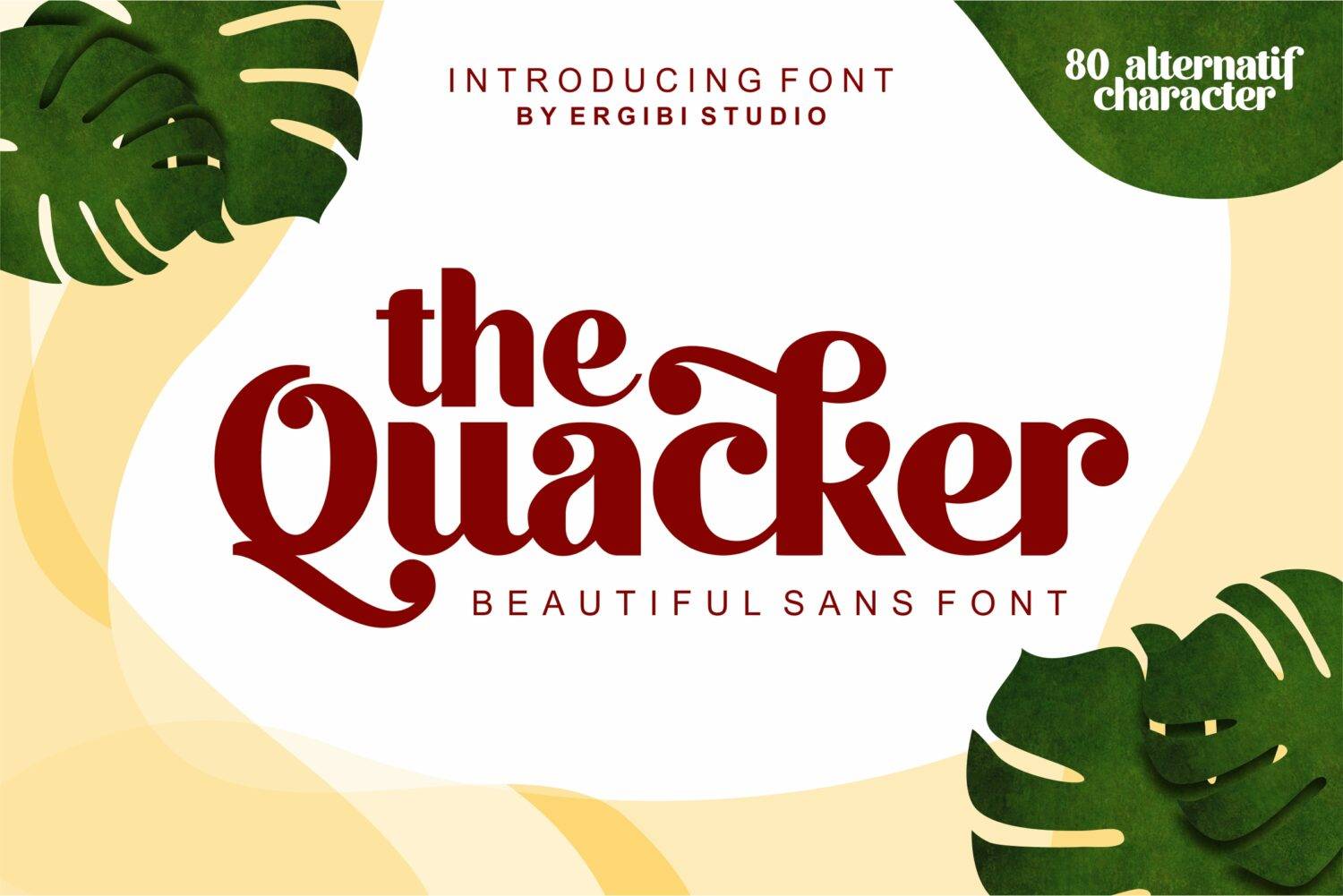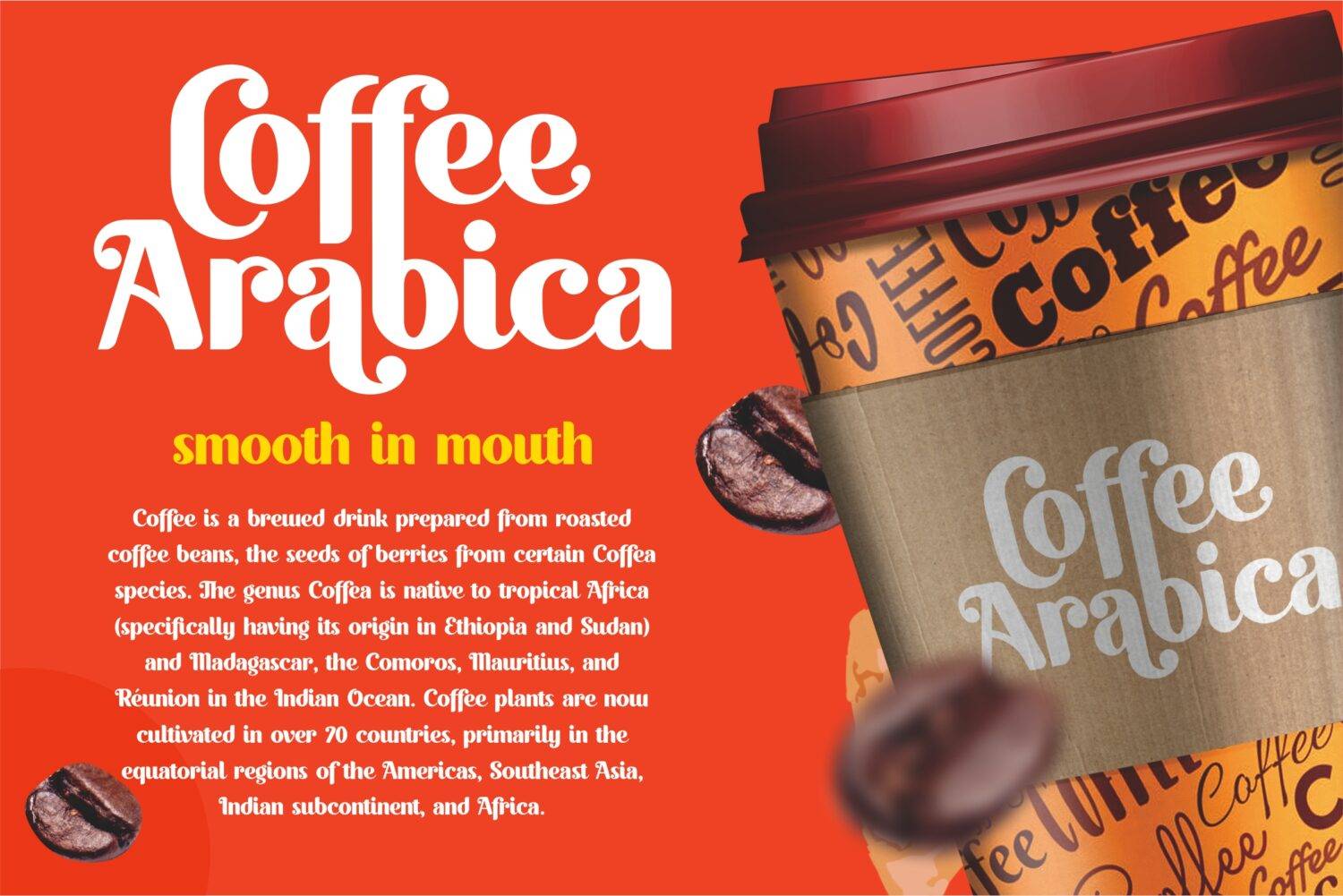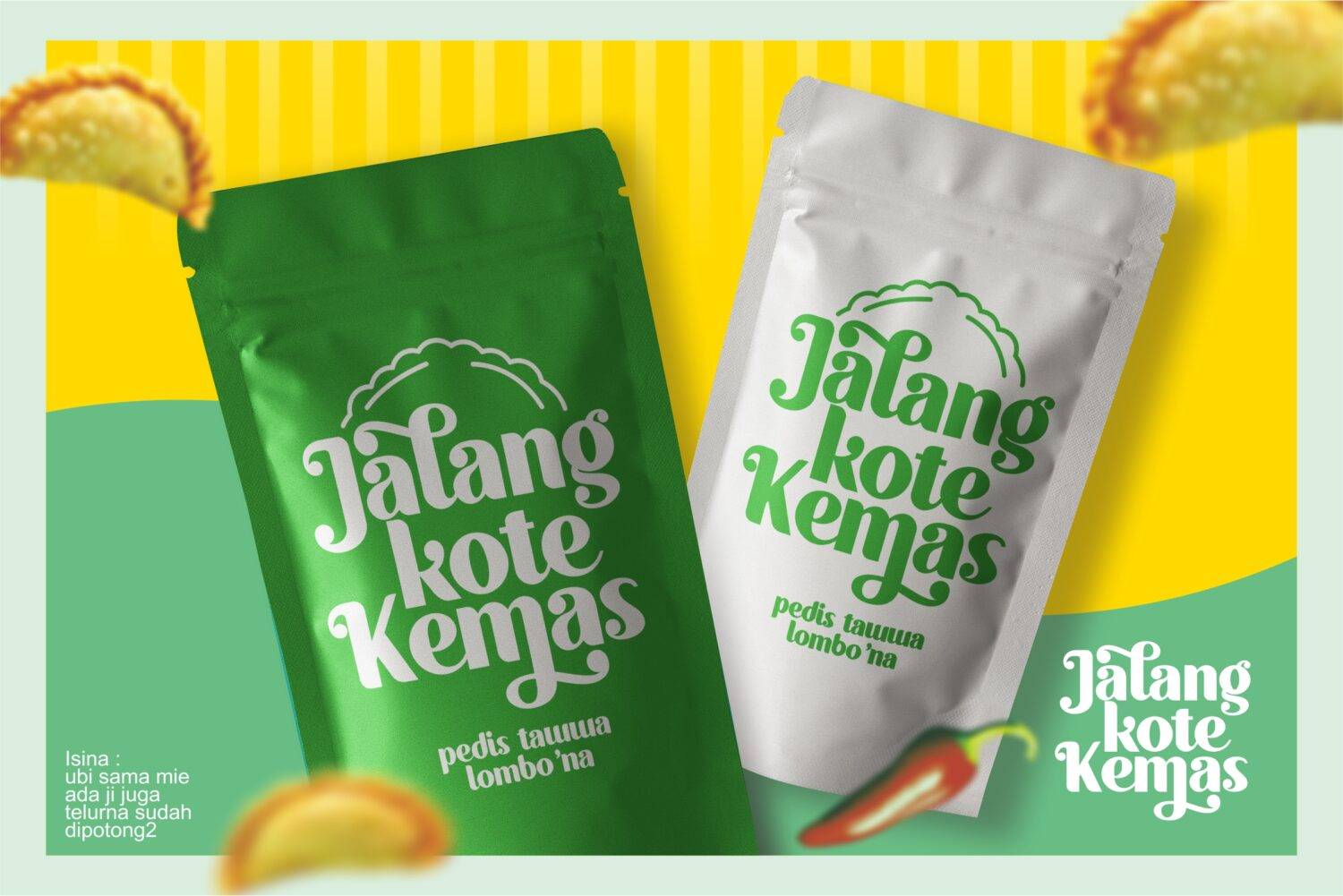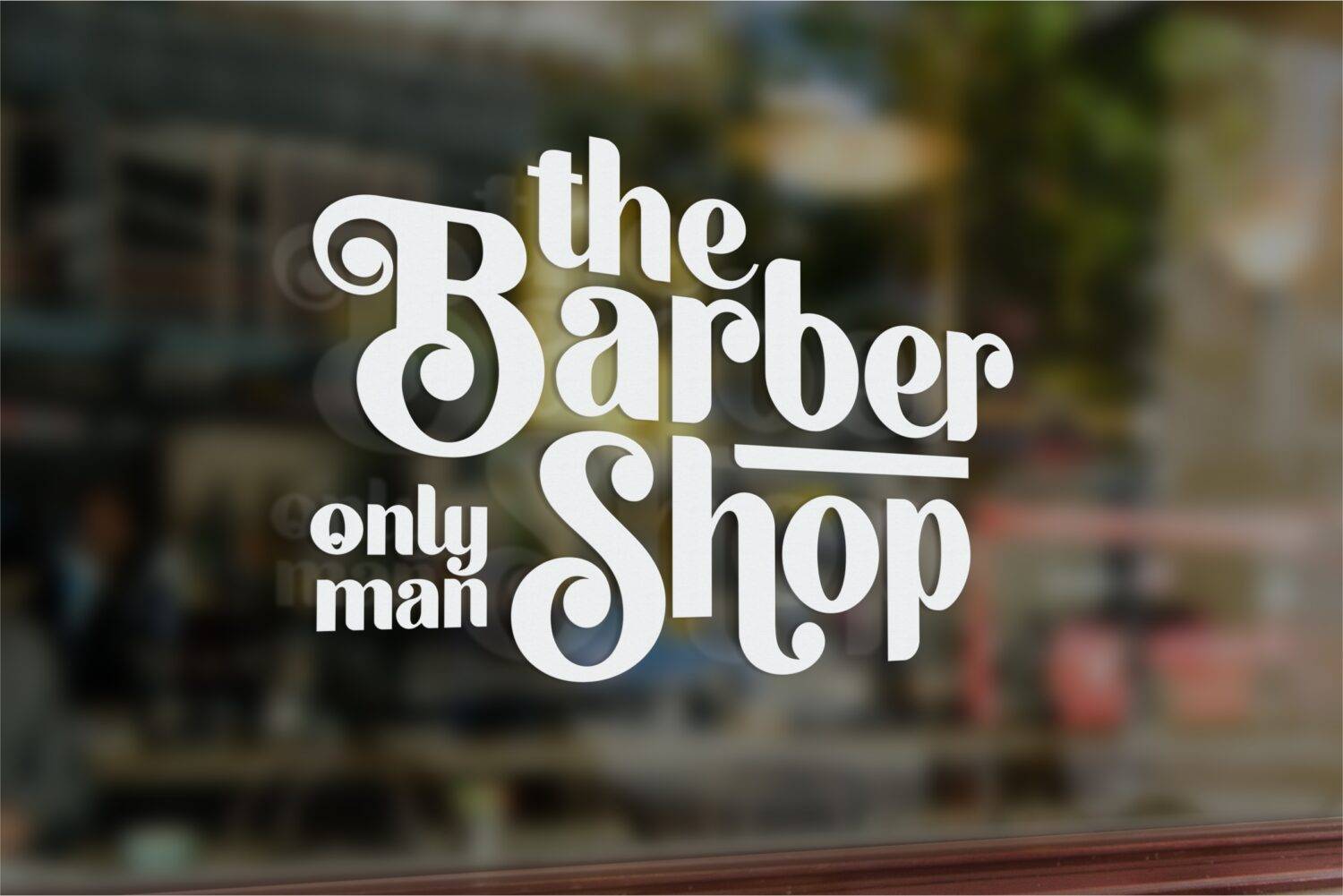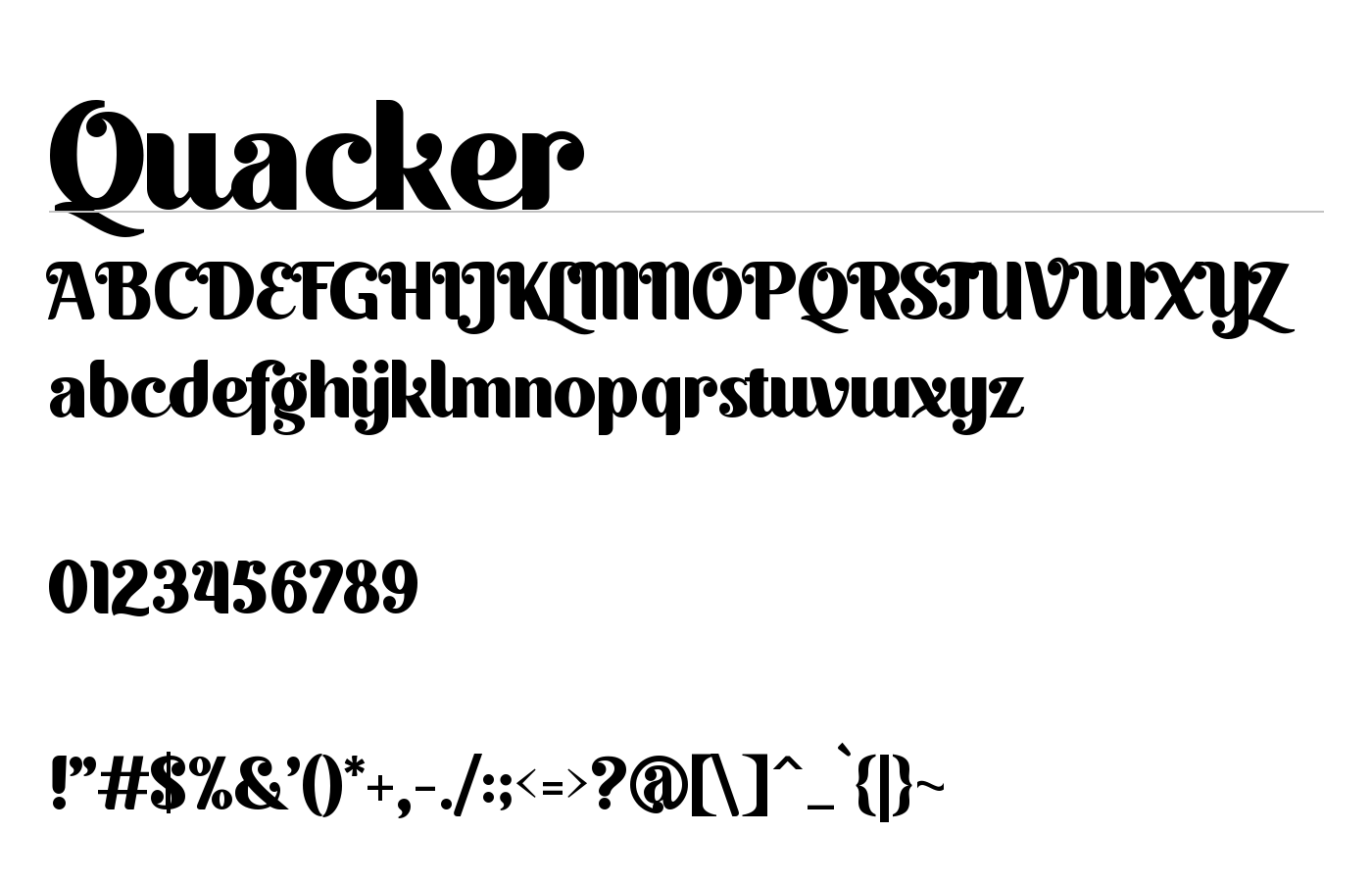
Quacker Font is a bold and playful serif typeface with a strong contrast between thick and thin strokes and distinctive curled terminals that add a whimsical touch. Its slightly condensed letterforms and unique character shapes make it ideal for eye-catching headlines, logos, and branding projects that want to convey creativity and personality with a vintage flair. This font shines best in display settings where its decorative style can stand out and bring a fun yet sophisticated vibe.
Quacker Font
About Quacker Font
| Font family | Quacker Font |
| Designer | Riyadh Rahman |
| Trademark | ErgibiStudio 2019 |